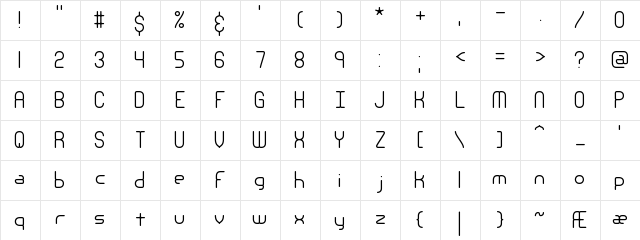
Nanosecond Thin BRK Normal
Design Context for Nanosecond Thin BRK Typeface
Nanosecond Thin BRK is a composed and adaptable typeface that performs quietly and consistently across a wide range of design contexts. The delicate stroke weight brings airiness and refinement to layouts. Its narrow stance lets it pack a punch even in space-constrained designs.
Pro Tip: Use Nanosecond Thin BRK in both headline and body roles to test its range before committing to a single application.